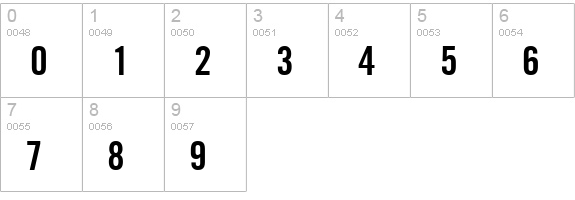
Commerce Black Condensed SSi Bold Condensed Font Details
Commerce Black Condensed SSi Bold Condensed is a maximum-weight, dramatic, condensed-width variant in the Commerce typeface family \xE2\x80\x94 well suited to maximum-impact headlines, posters, and packaging.
Commerce Black Condensed SSi Bold Condensed font is a sleek and modern typeface that exudes confidence and elegance. Its bold condensed design makes it perfect for creating eye-catching headlines and titles that demand attention. This font is ideal for use in branding, advertising, and editorial design projects where a strong and contemporary aesthetic is desired. What's even better is that Commerce Black Condensed SSi Bold Condensed font is available for free download at FontsMarket.com. You can easily access this stylish and versatile font to enhance your creative projects without any cost. Don't miss out on this fantastic opportunity to elevate your designs with a premium-quality typeface that is both striking and professional. Download Commerce Black Condensed SSi Bold Condensed font now and unleash your creativity!